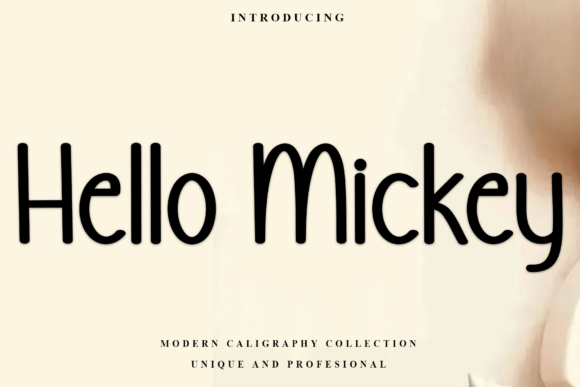
Hello Mickey Font: Festive Typography for Makers
The glow of my desk lamp was the only light in the studio as I stared at a blank candle label template. It was mid-October, and the holiday rush was already breathing down my neck. I needed a typeface that felt warm, nostalgic, and undeniably merry without looking like a generic clip-art disaster. That is when I loaded Hello Mickey into my design software. As soon as I typed "Winter Spice" across the artboard, the entire mood of the product shifted. The decorative elements and whimsical flair of this festive font didn't just fill space; they told a story. For handmade sellers and printable creators, finding a typeface that carries emotional weight is half the battle, and Hello Mickey bridges the gap between professional typography and cozy, handcrafted charm.
Capturing the Holiday Spirit in Product Design
Hello Mickey is more than just a collection of glyphs; it is a mood setter. In the crowded marketplace of Script Amp fonts, this particular typeface stands out because it balances playfulness with elegance. When designing for the holiday season, there is often a temptation to go overly ornate or excessively bold. Hello Mickey avoids these extremes by offering a refined script structure adorned with subtle decorative touches. These aren't distracting flourishes but rather intentional design choices that mimic the feeling of vintage holiday cards and heirloom ornaments.
In my own workflow, I found this balance crucial for maintaining brand consistency. My shop aesthetic leans toward modern farmhouse with a touch of retro nostalgia. Using a premium font like Hello Mickey allows me to elevate simple products. A plain white candle becomes a boutique item when the label features this enchanting lettering. A standard kraft paper gift tag transforms into a keepsake. The visual personality of the font does the heavy lifting, communicating quality and care before the customer even reads the product details. It creates an immediate emotional connection, which is exactly what we strive for in creative font selection for physical merchandise.
Real-World Applications for Handmade Goods
Versatility is key for any maker investing in commercial font licensing. You need assets that work across multiple mediums without losing their integrity. During my seasonal prep, I tested Hello Mickey on three distinct product lines to see how it performed outside of digital mockups.
- Candle and Wax Melt Labels: This was the primary test. The font’s thick-to-thin stroke contrast remained crisp when printed on matte vinyl stickers at 2 inches wide. The swashes added a premium feel to scent names like "Frosted Pine" and "Cinnamon Hearth," making them legible yet decorative.
- Holiday Greeting Cards: I used Hello Mickey for the main sentiment on a folded card series. Paired with a clean sans serif font for the interior message, the cover text popped beautifully against textured cardstock. The whimsical flair worked perfectly for phrases like "Joy & Merry" without competing with watercolor illustrations.
- Boutique Packaging Tags: For shipping tags attached to tote bags and linen napkins, readability at small sizes is non-negotiable. Hello Mickey held up surprisingly well at 18pt size, retaining its character without the delicate loops filling in during the printing process.
These real-world tests confirmed that Hello Mickey isn't just for display use on large signs; it functions effectively as a working typeface for product packaging and branding materials where clarity matters as much as style.
Typography Pairings and Layout Strategy
A beautiful script can easily become overwhelming if not anchored properly. When incorporating Hello Mickey into your designs, think of it as the lead vocalist in a choir. It deserves the spotlight, but it needs harmony. I consistently pair this festive font with minimalist typefaces to let its decorative elements shine. A geometric sans serif font provides a modern counterpoint that keeps holiday designs from looking dated. Alternatively, a simple serif font adds an editorial sophistication that works wonders for wedding invitations or high-end stationery suites.
For digital downloads and printable wall art, hierarchy is everything. Use Hello Mickey for the focal point—names, dates, or short inspirational quotes. Reserve your body copy for highly readable fonts. This approach ensures that your typography enhances the user experience rather than hindering it. In logo design or shop headers, this font can establish a strong brand identity, but remember that scripts are best used sparingly. Let the whitespace around the letters breathe. Crowding Hello Mickey diminishes its enchantment; giving it room amplifies its festive impact.
Technical Considerations for Cutting Machines and Print
As crafters who frequently use Cricut or Silhouette machines, we know that screen aesthetics don't always translate to vinyl. Before committing Hello Mickey to a cut project, always test your specific material and blade settings. While the font is robust, intricate swashes may require a slower cutting speed or a fine-point blade for clean weeding. If you are creating iron-on transfers for shirts or tote bags, consider slightly increasing the tracking (letter spacing) to prevent heat transfer issues in tight curves.
For print products, pay attention to ink spread. On absorbent papers like uncoated cardstock or kraft paper, ink tends to bleed slightly, which can thicken the delicate connections in script fonts. Hello Mickey is designed with good structural integrity, but adjusting your printer settings or choosing coated stocks for detailed labels can preserve those crisp edges. Always check the included file formats to ensure compatibility with your software. Whether you are using OpenType features for alternates and ligatures or sticking to standard characters, understanding the technical specs prevents production headaches later.
Ultimately, Hello Mickey succeeds because it understands the assignment. It brings warmth to cold winter designs, adds value to handmade goods, and offers makers a reliable tool for storytelling. Whether you are pressing vinyl onto mugs, designing planner pages, or finalizing holiday packaging, this typeface delivers the festive spirit with practical versatility. It turns the act of reading into an experience, reminding us that in the world of handmade creation, the right words—and the right font—truly do make all the difference.